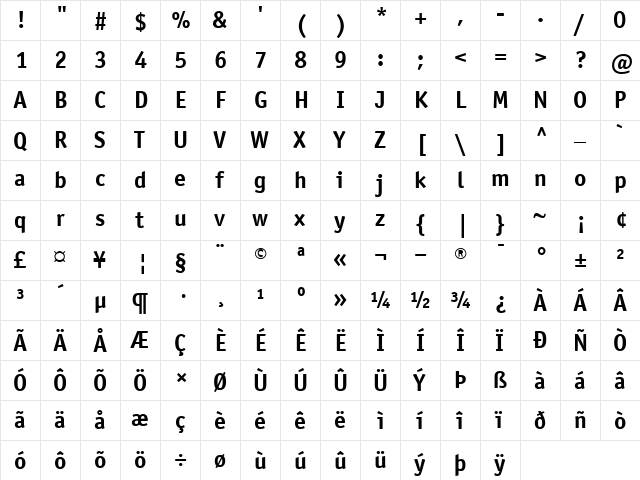
OfficinaSansBold Normal Font Preview
OfficinaSansBold Normal
OfficinaSansBold Normal Font Details
Design Context for OfficinaSansBold Typeface
OfficinaSansBold offers clean, dependable letterforms without strong stylistic allegiance, making it a practical choice for designers who need flexibility. The heavy weight commands attention and anchors typographic hierarchies.